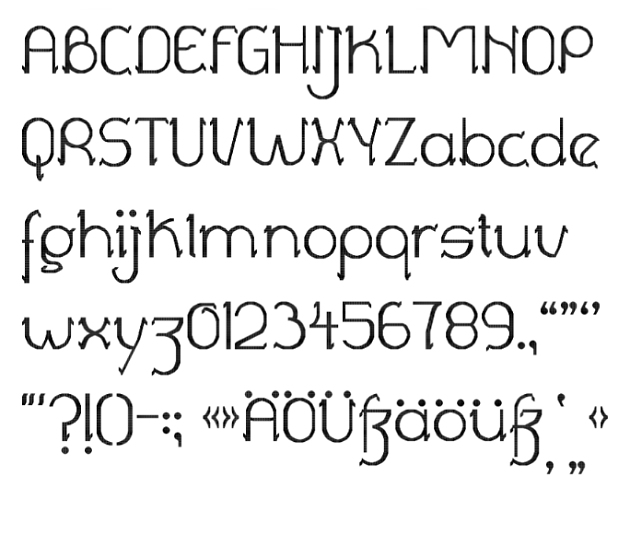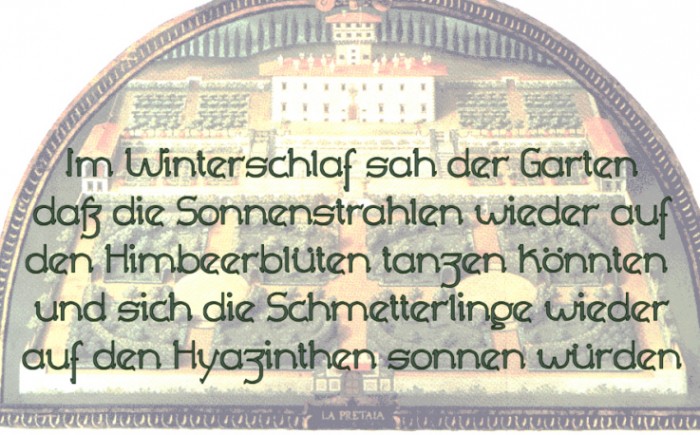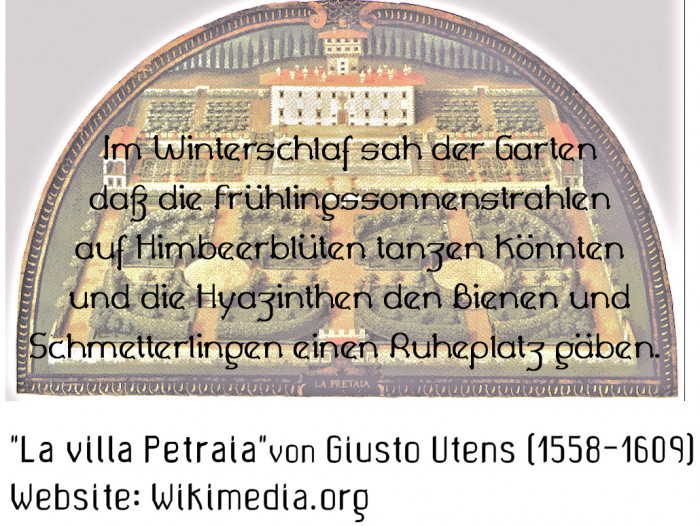
• The painting in the sampler is from Wikimedia:  the "Villa Petraia". I'll add more diacritics when I know which language(s) my friends want to see supported.
Love this, though lc Z is a tad similar to 3...
I see them on different levels with different forms and heights. My old computer messing things up? :'( *wasted23hrsResearch-Drawing-Making* After 30thNov I'll make an easy (not historically influenced) font
Do others see this z=3 ? Then I'll attempt a new Fontstruction, after finishing those I work on atm.
I like the serifs. They are subdued, simple and yet also interesting. I think the quotes need to look more like the serifs. They seem out of place regarding the style of the rest of the font.
@jonrgrover:  I've changed all quotation marks to look more like the serifs; hence the new shape for ' and " to look more like the quotes. Diareses in the sampler were too low and have been lifted.
I love how z and eszett look XD
I don't think z looks like 3
@blumon:Thank you! @xBox: too much"bad design" which I like and won't repair (3=z, ok; you forgot a=o, u=v, n=h, S=5, p=b, q=d, 1=l, D=O=0, 7=Z ... ) Would it be right to encourage download and study?
I enjoyed the Villa Petraia sample. The font is great (its fanciful design too). Perhaps too clean to look as old as expected, esp. printed/engraved (well, it'd be a question of image edition on my side, but degraded alternates might help beforehand). What was your inspiration for "Jardin"? (talking typeface, not only the aimed context.) Serifed dots might be feasible(?).
dpla: thank you :)it's based on home-made cassis medication>>thanking our cassis plants>>medicinal garden. Dots are done. a,o,c,g etc have berries shape;) I'll 'age' glyphs next year.
If you can see berries everywhere, it might be high time to stop assessing your medicinal liqueur? (Aeo is a hippy home distiller ;-)) (Now I must go and buy some Mon Chéris… an artificial substitute for the oppidans.)
lol dpla "J'M" MonChéri! I once made chocolates like it as presents to family and friends :° This  year it's "Jardin-le-font" in FS blackcurrant flavour. I don't distill, I extract. Hippy, right... ;)
Added -- some symbols; all Latin Supplement diacritics; changed spacing, LC+UC "ß", G, aspects of g, F, &, brackets,
I've redone the sampler as too many glyphs were changed since I first published font and sampler. (decription: Ingerol-1)